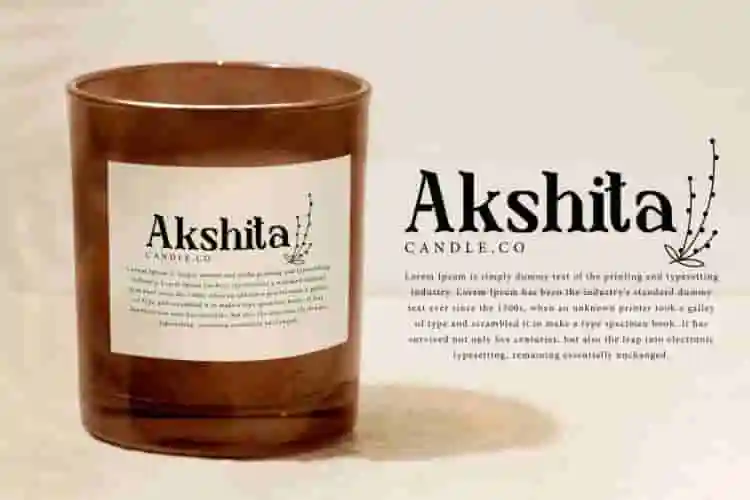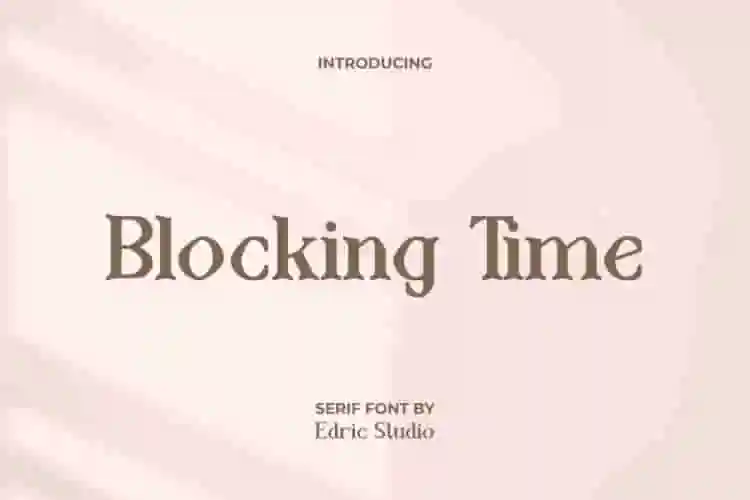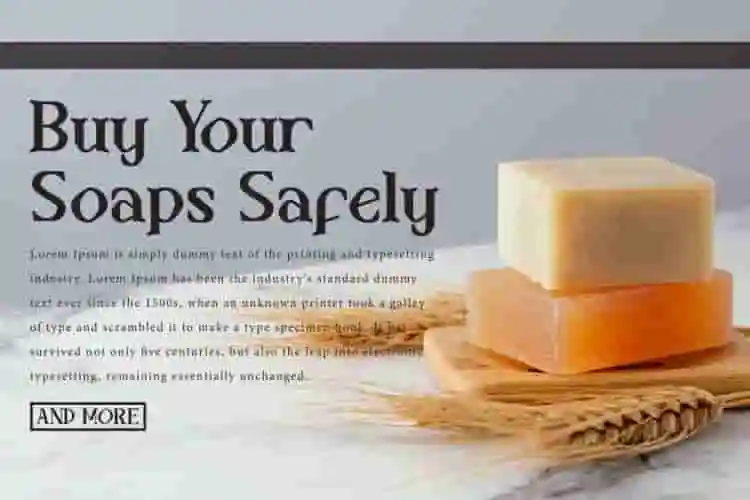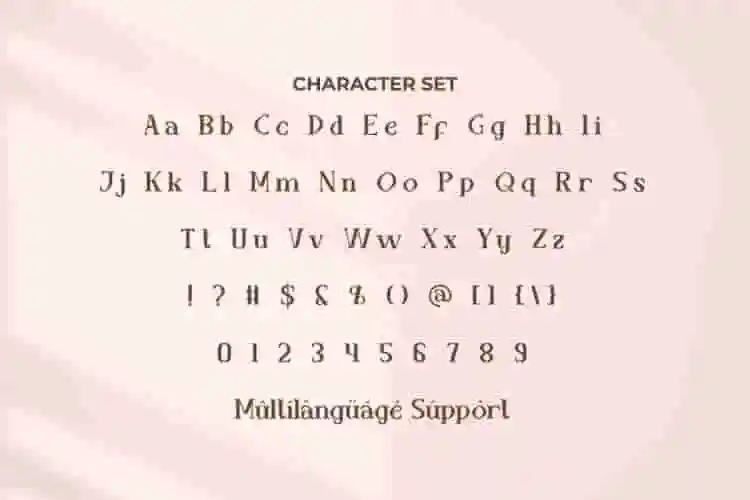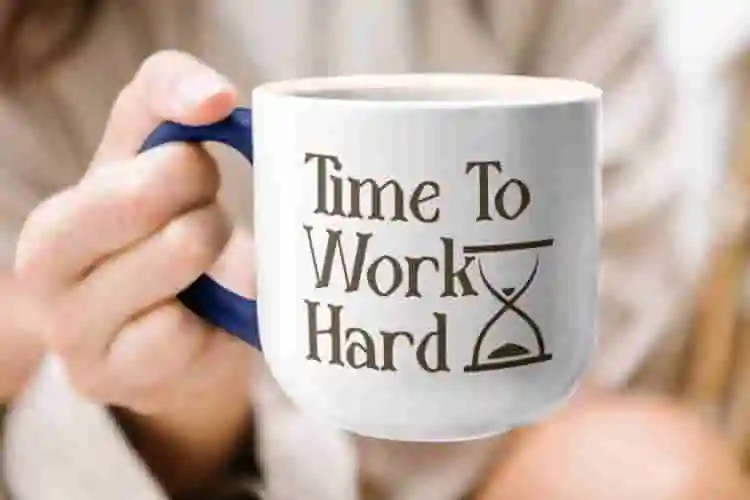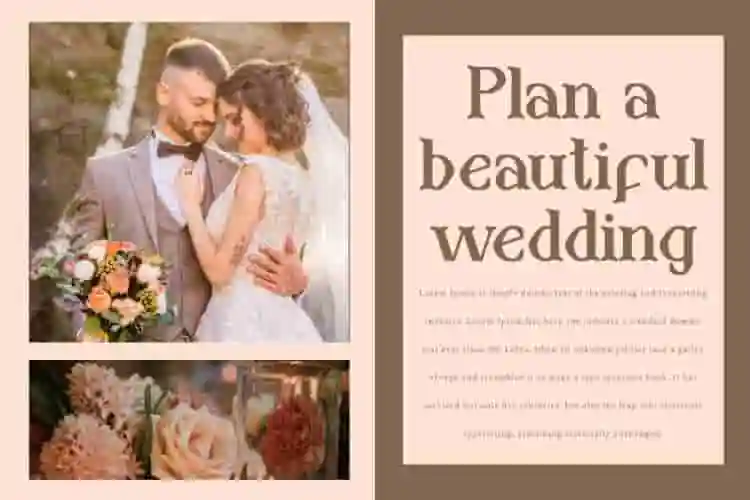
Blocking Time Serif Font
Blocking Time Font is a vintage old stone serif font designed by EdricStudio. The font inspired by the stone structure makes it unique and will suit any industry, such as accessories, architect, ceramic engraving, clothing brand, coffee brewer, event or festival, fashion designer, handicraft, homeware, movie, printing, publishing, skincare, writer, and many more.
Blocking Time Font comes with full set of Uppercase and Lowercase Basic Characters, Number, a large range of Punctuation and Symbol. It has a stunning characters set, perfectly managed with well spaced and kerning. Blocking Time Font will be able to complement for any project (with extended license) including: apps, billboard, brand logo, brochure, business card, cover, engraving, header, label, packaging design, quotes, screen print, stationery, sticker, title, website, etc.
Introducing Blocking Time, a powerful serif font designed to make every word count. With sharp serifs, strong lines, and elegant proportions, this font blends classic typography with modern boldness—perfect for making a lasting impression.
Meet Blocking Time, a modern serif font crafted for designers who value clarity, structure, and timeless style. With bold contrast, clean edges, and refined serifs, this font is built to make bold statements without losing sophistication.
• High-Contrast Serif Design
• Modern Meets Classic